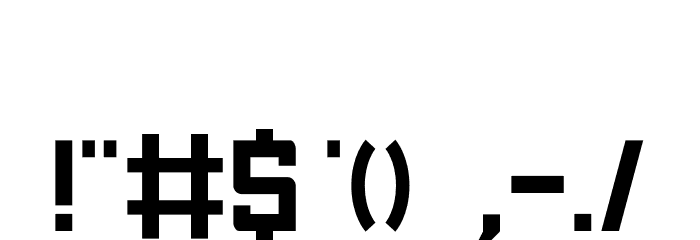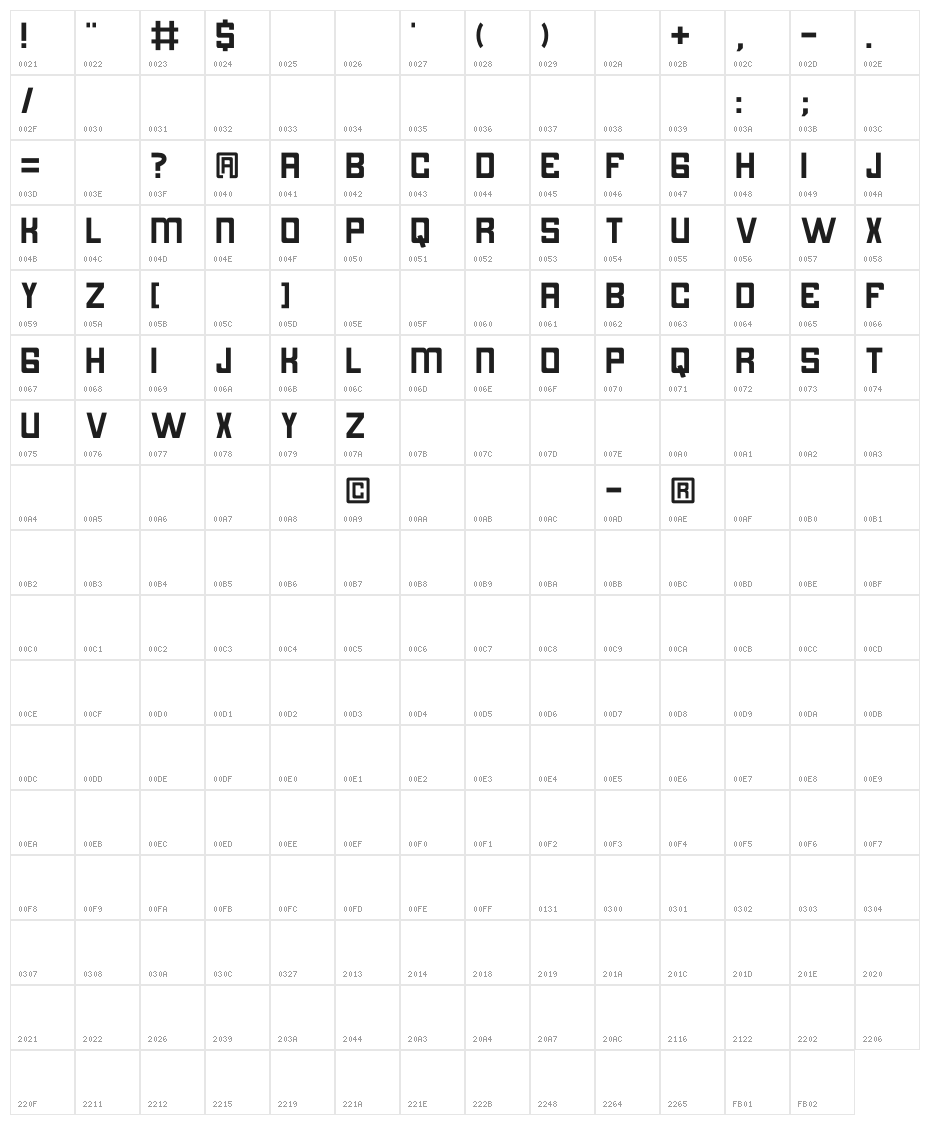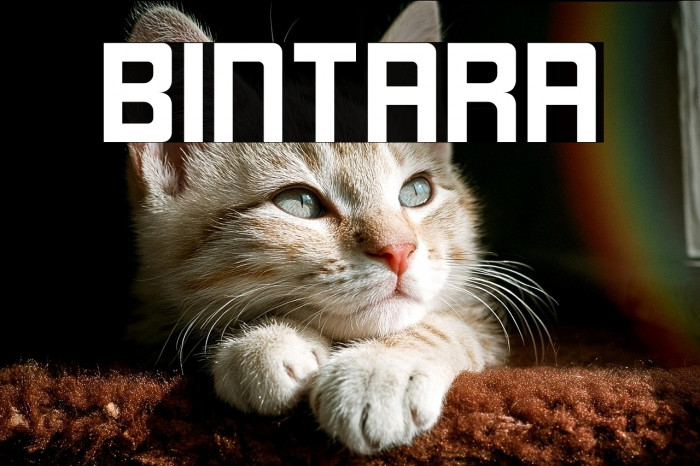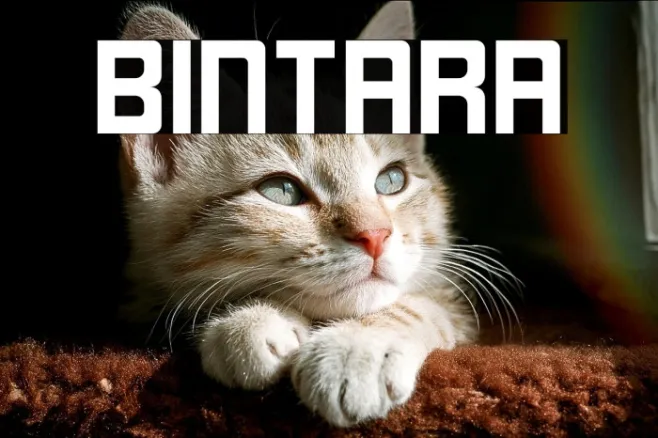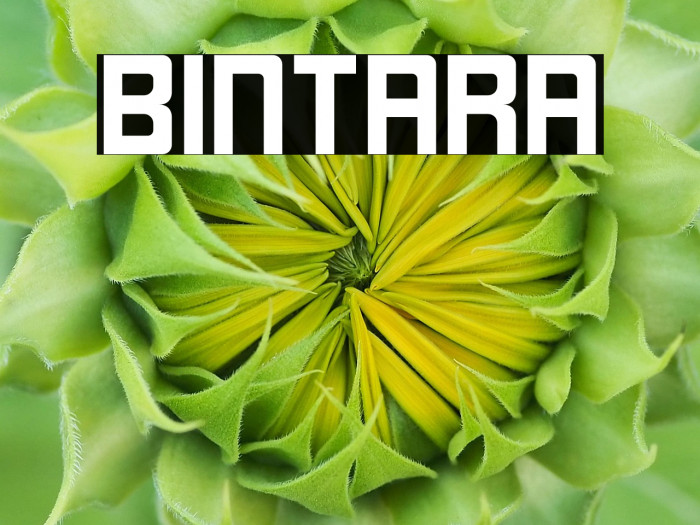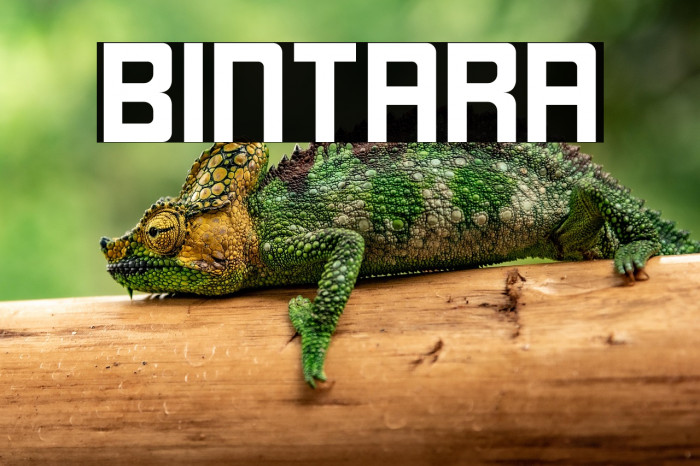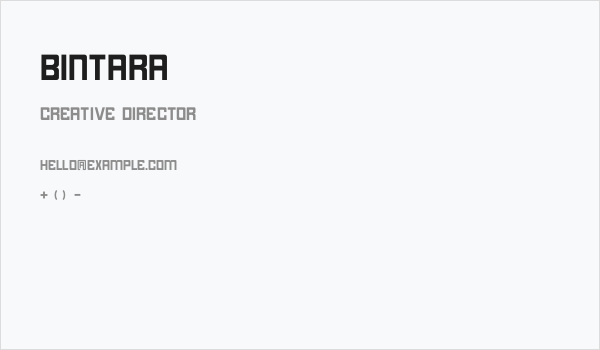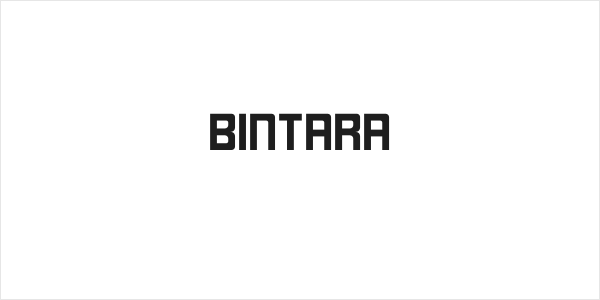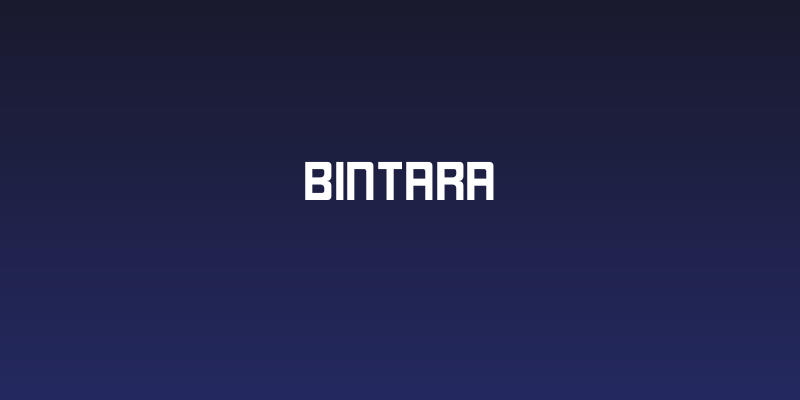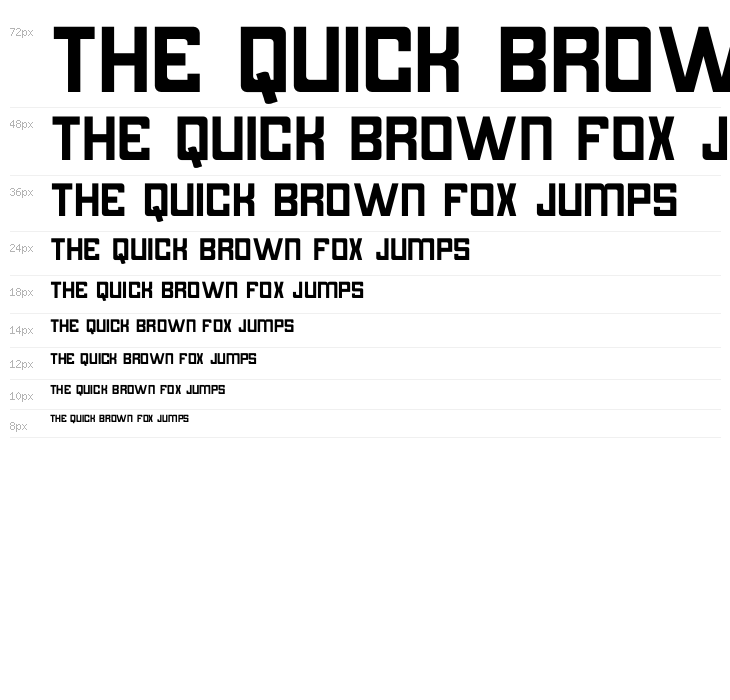
Bintara Font
Bintara Description
This font features a bold, geometric design with a strong presence. The characters are constructed with uniform stroke widths, giving it a monospaced appearance. The angular and blocky style is reminiscent of industrial or futuristic themes, making it stand out in any design. The uppercase letters are particularly striking, with their squared-off edges and consistent height. The numerals and special characters maintain the same boldness and geometric precision, ensuring a cohesive look across all text. This font is ideal for projects that require a modern and assertive aesthetic.
| Proposed Projects | Ideal for branding, posters, headlines, and any design requiring a modern, bold statement. |